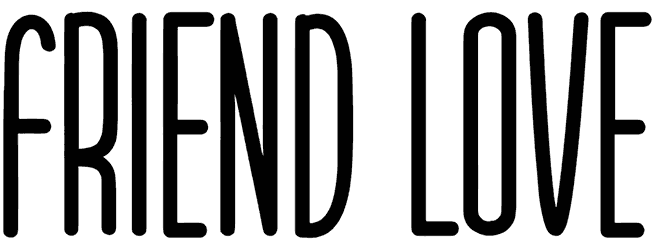
Friend Love Font
Do you want to design your text in a minimal and modern way? This tall font is able to do this with its modest and salient style. Friend Love is a delightful illustration for many layouts, like covers, posters, apparel, logos, and so on. Even without lowercase letters, Friend Love will be enough to promote your designs with its unique mood.